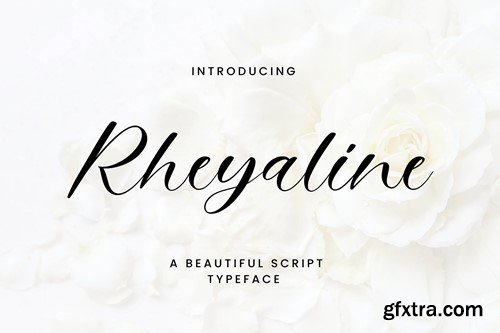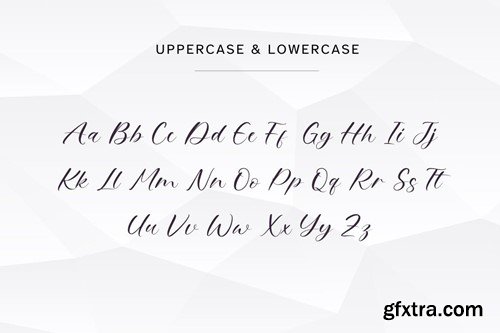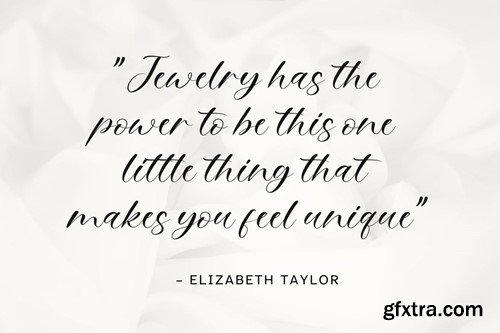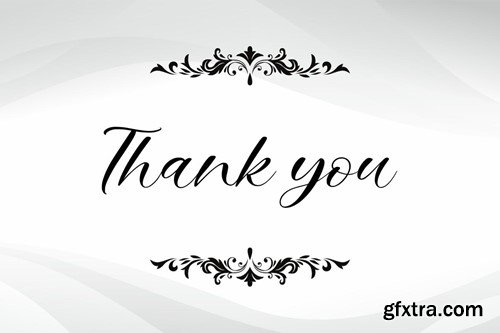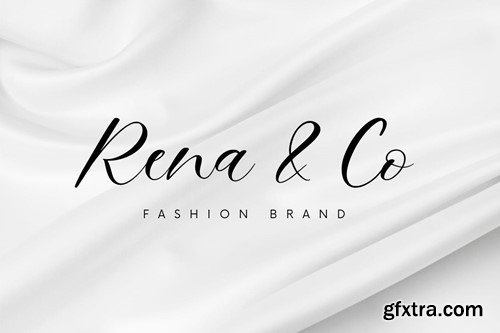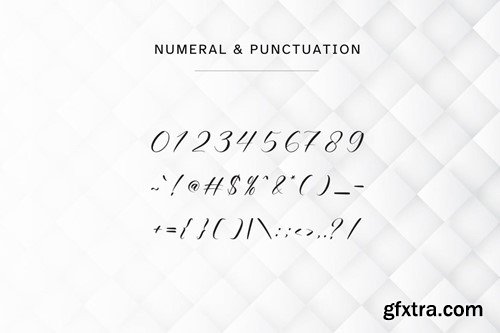
琉璃体 - 一种美丽的手写字体 5SR5QBX
Rheyaline - A Beautiful Script Typeface Rheyaline is more than just a font; it's a journey into the world of exquisite script design. A beautiful typeface that effortlessly blends classic charm with modern flair, Rheyaline invites you to infuse your projects with elegance. Each letter is a work of art, meticulously crafted to bring a touch of sophistication to your creative endeavors. Whether you're working on wedding invitations, branding materials, or any design that demands grace, Rheyaline is the perfect choice. With its flowing lines and graceful curves, Rheyaline adds a sense of beauty to every character, creating a harmonious visual experience. This script typeface is versatile, capable of conveying both formality and warmth, making it suitable for various applications. Elevate your designs with Rheyaline, where the art of typography meets the allure of beauty in every stroke. What’s Included : Thank you